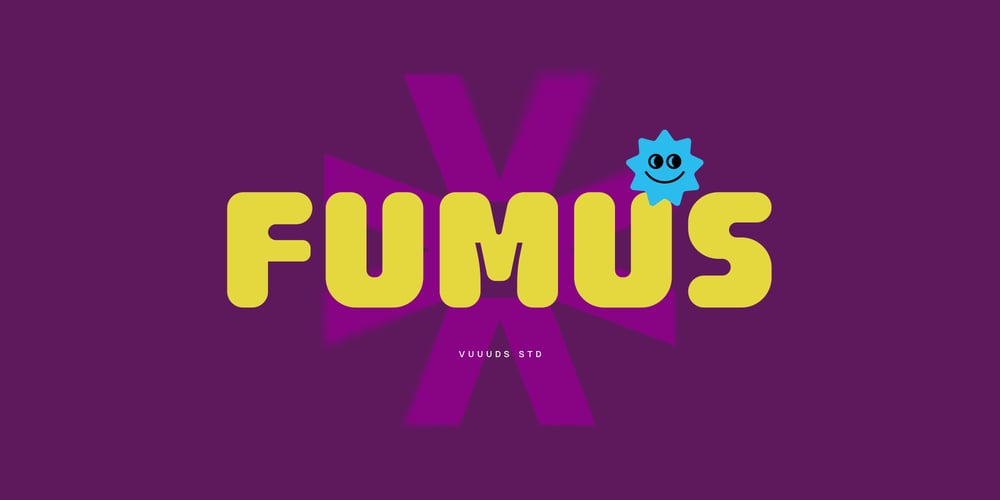
Fumus
Fumus font
Fumus Font Family was designed by Agung Syaifudin and published by vuuuds. Fumus contains 1 styles and family package options. Introducing Fumus Font!Fumus is modern experimental extra bold font, every single letters have been uniquely crafted.This font including alternate glyph. You can access the alternate glyph via Font Book (Mac user) or Windows Character Map (Windows user), I’ve been put the link tutorial inside the zip file.